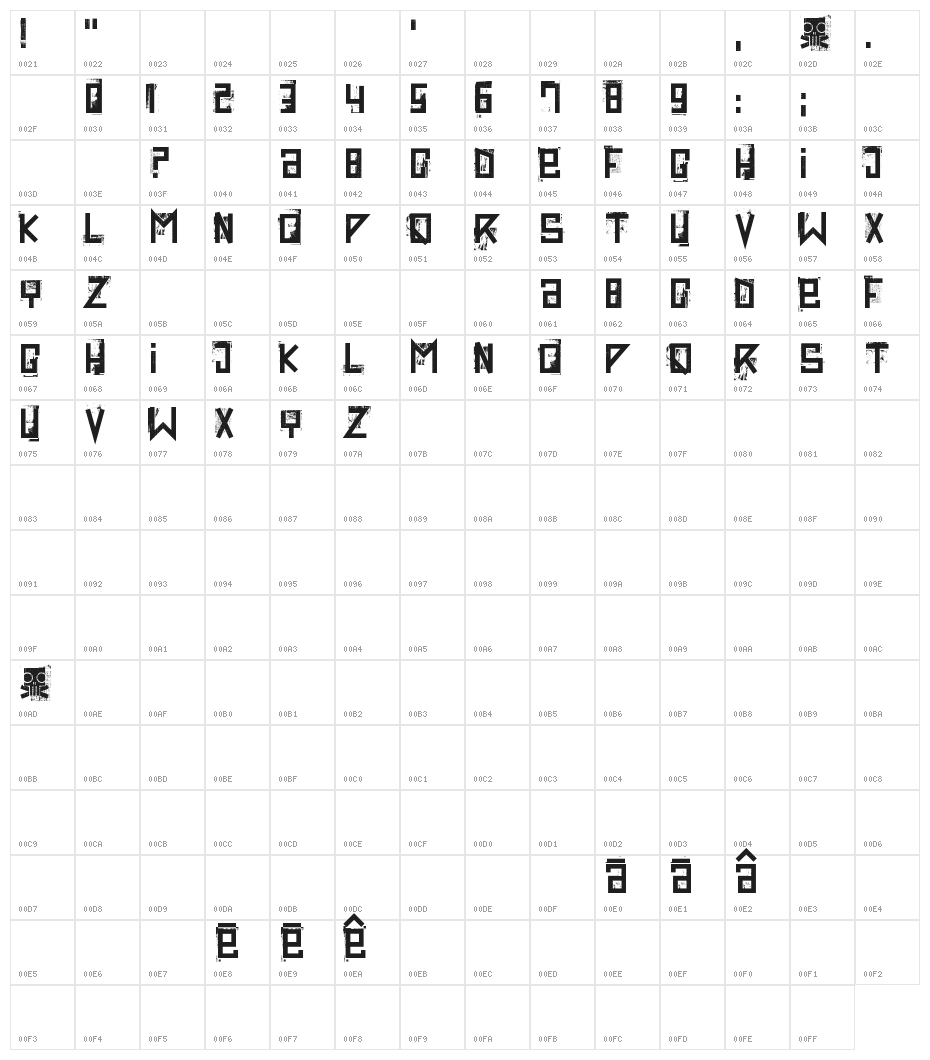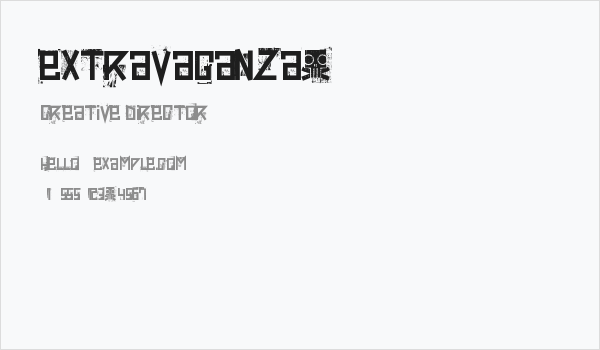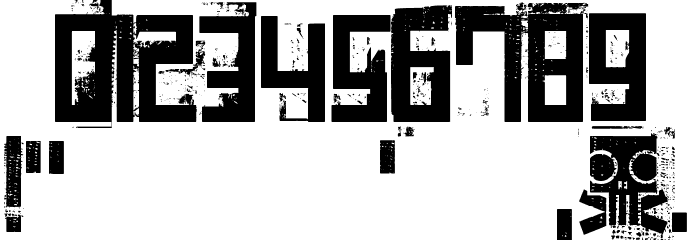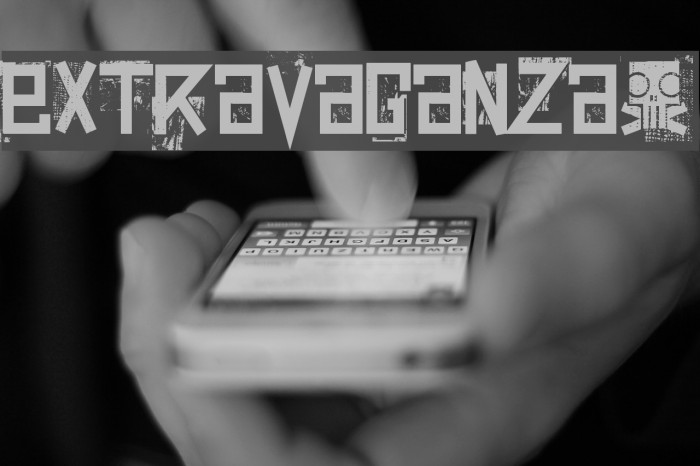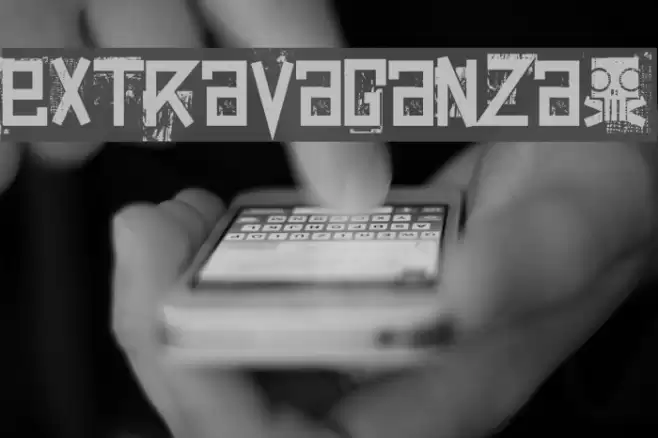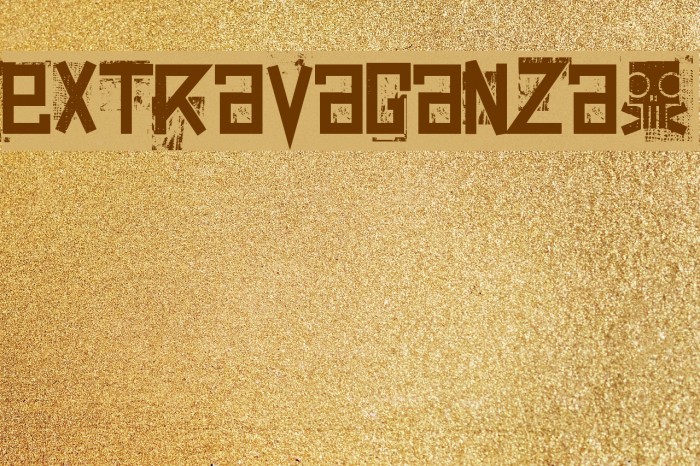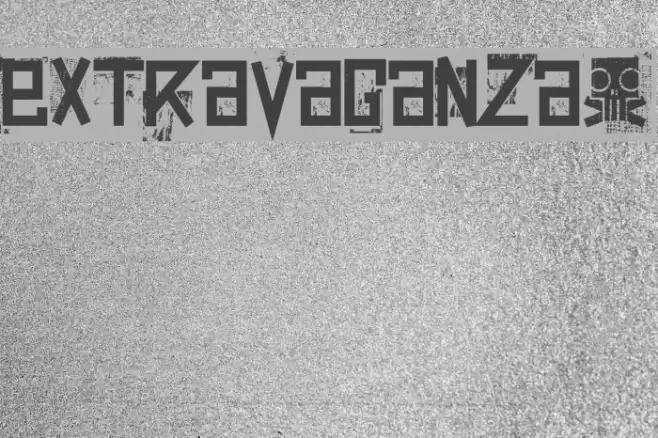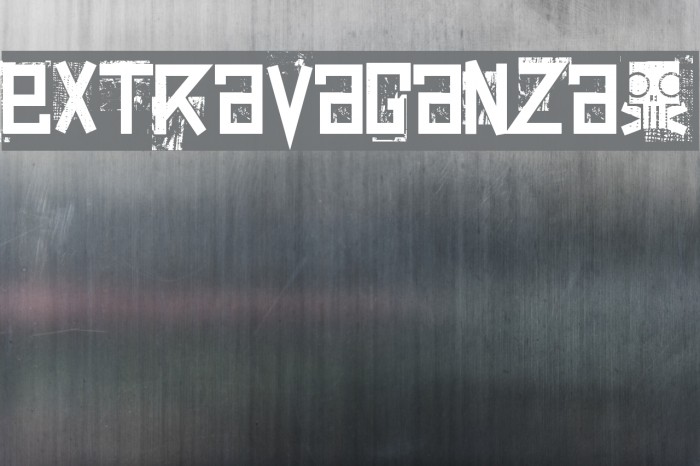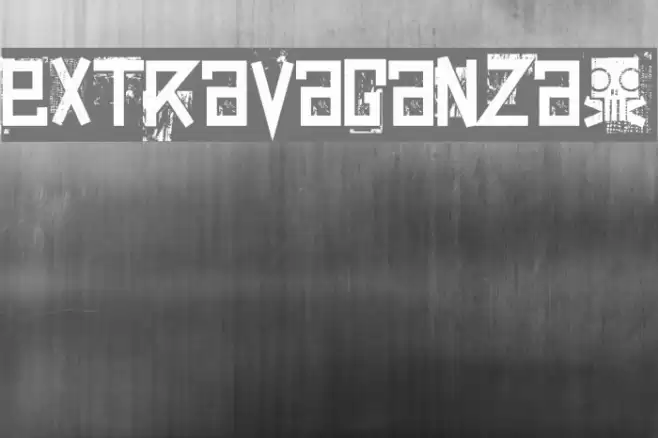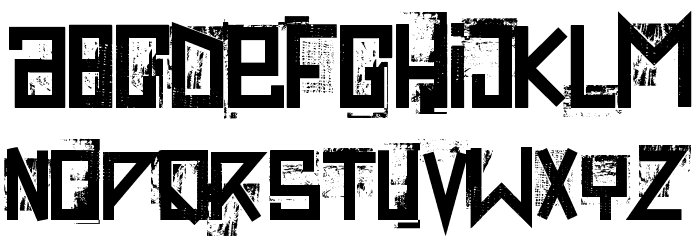
extravaganza- Font
✎ Distorted Eroded
| Estilo general | Grunge, Urban, Edgy |
| Caso de uso | Headlines, Posters, Branding |
| Proyectos propuestos | Ideal for music album covers, event posters, urban-themed designs, and branding for edgy or alternative products. |